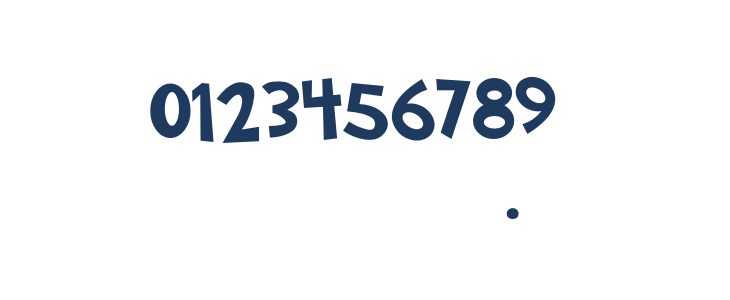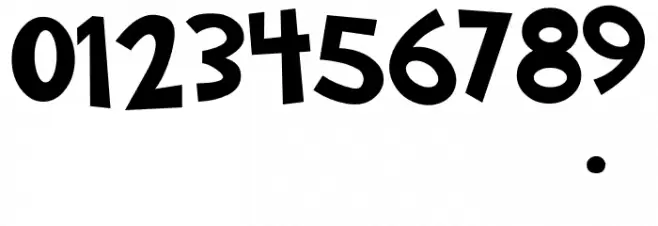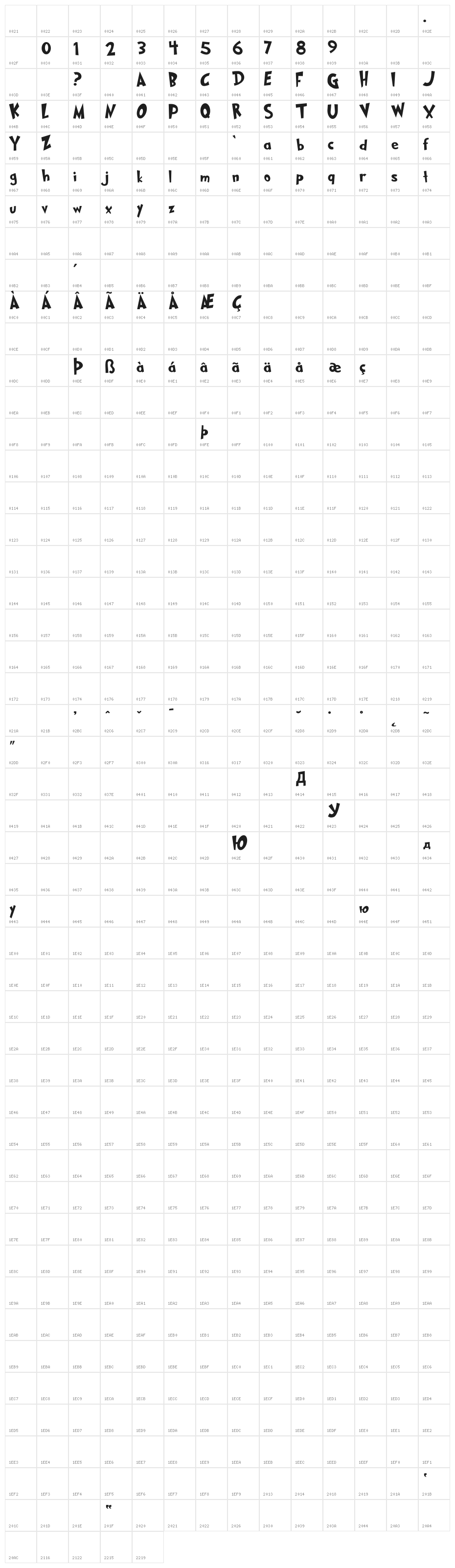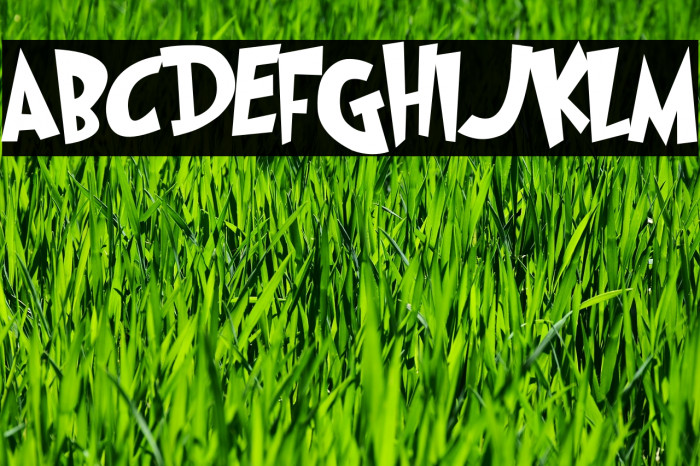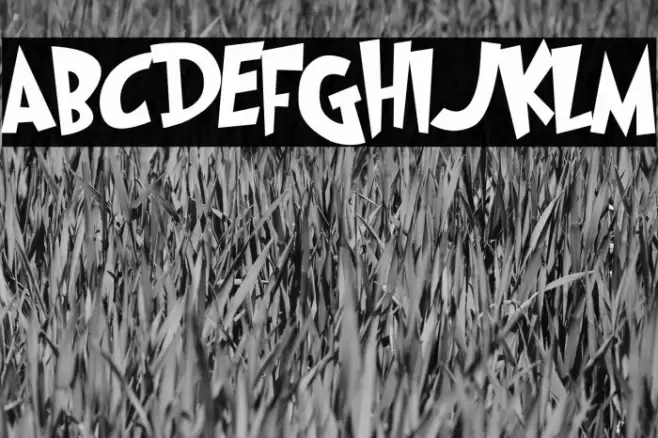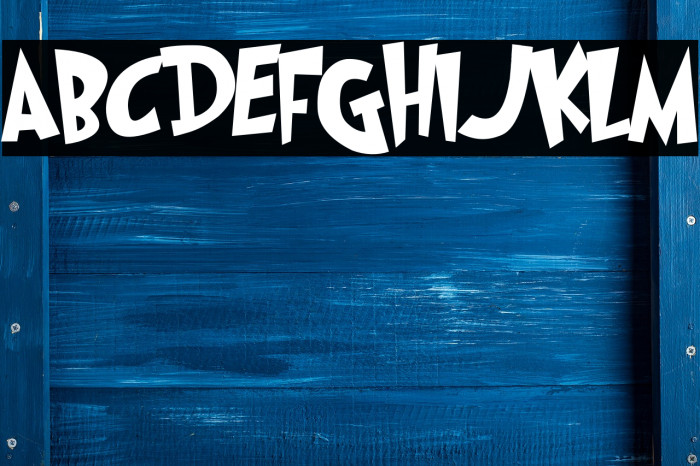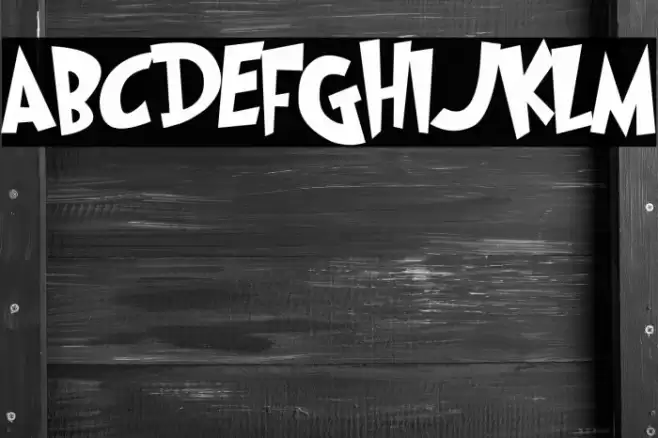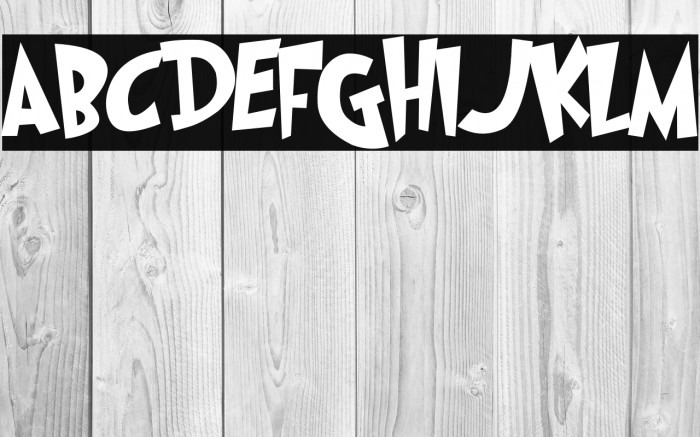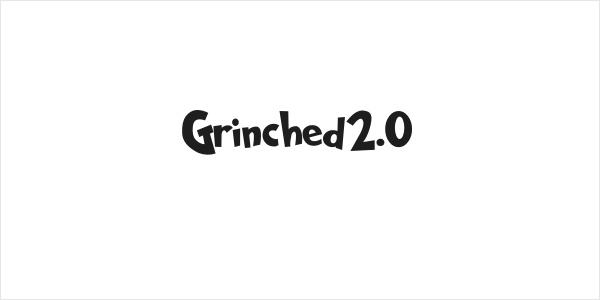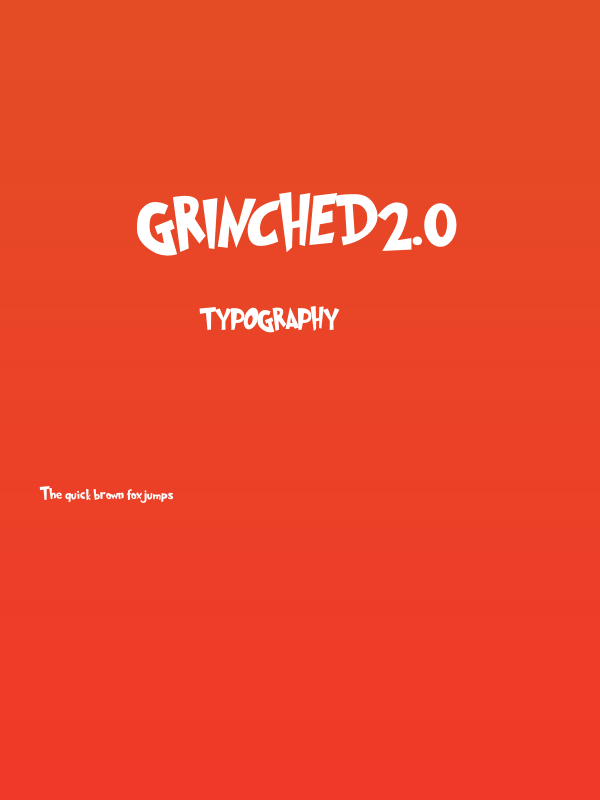
Grinched2.0 Font
Grinched2.0 Description
This playful and whimsical font features irregular, bold strokes that create a sense of movement and energy. The letters are slightly tilted and vary in size, giving it a hand-drawn, cartoonish appearance. The exaggerated curves and angles add a fun and quirky personality, making it ideal for creative and informal designs. The numbers and special characters maintain the same lively style, ensuring consistency throughout. This font is perfect for projects that require a touch of humor and creativity.
| Overall Style | Playful, Whimsical, Cartoonish |
| Proposed Projects | Ideal for children's books, holiday cards, playful branding, and event posters. |